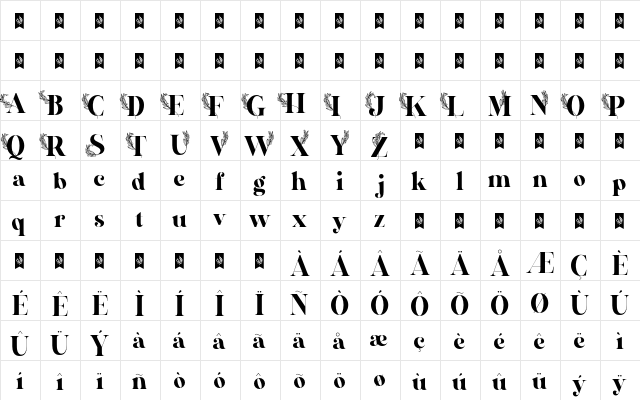
Veshion
Design Context for Veshion Typeface
Veshion offers clean, dependable letterforms without strong stylistic allegiance, making it a practical choice for designers who need flexibility.